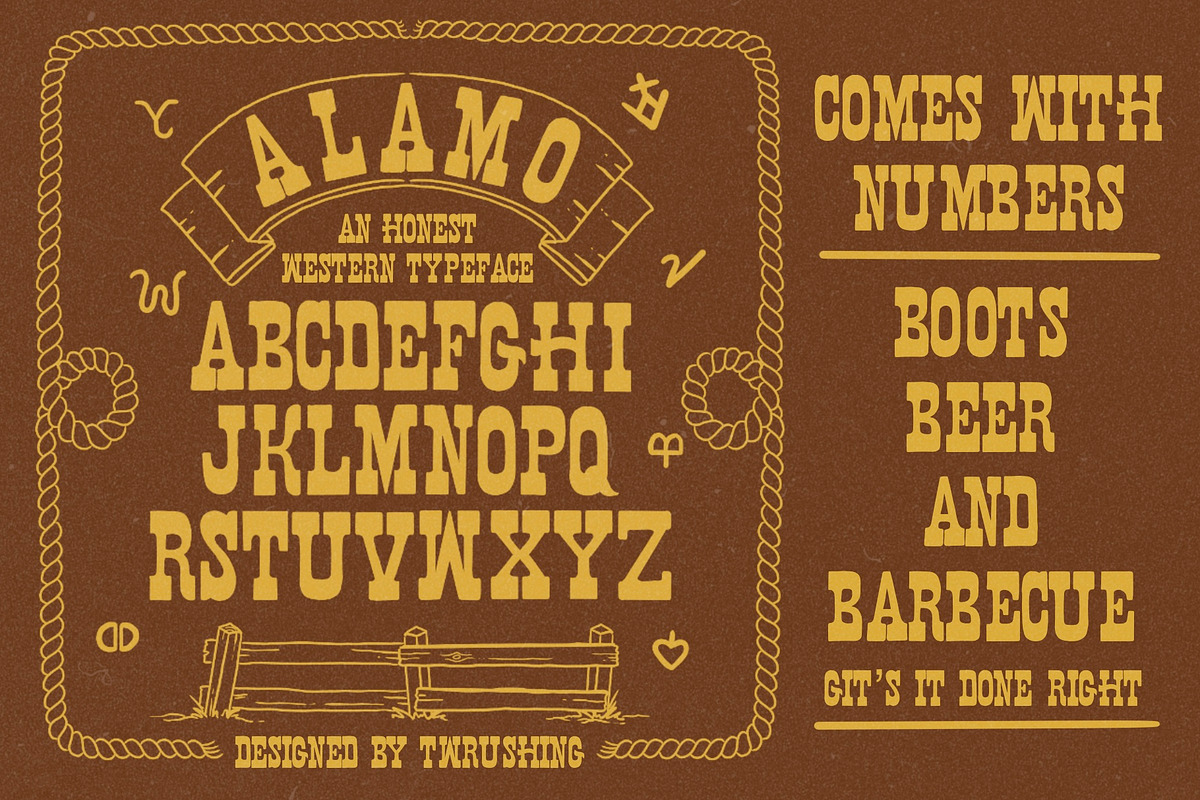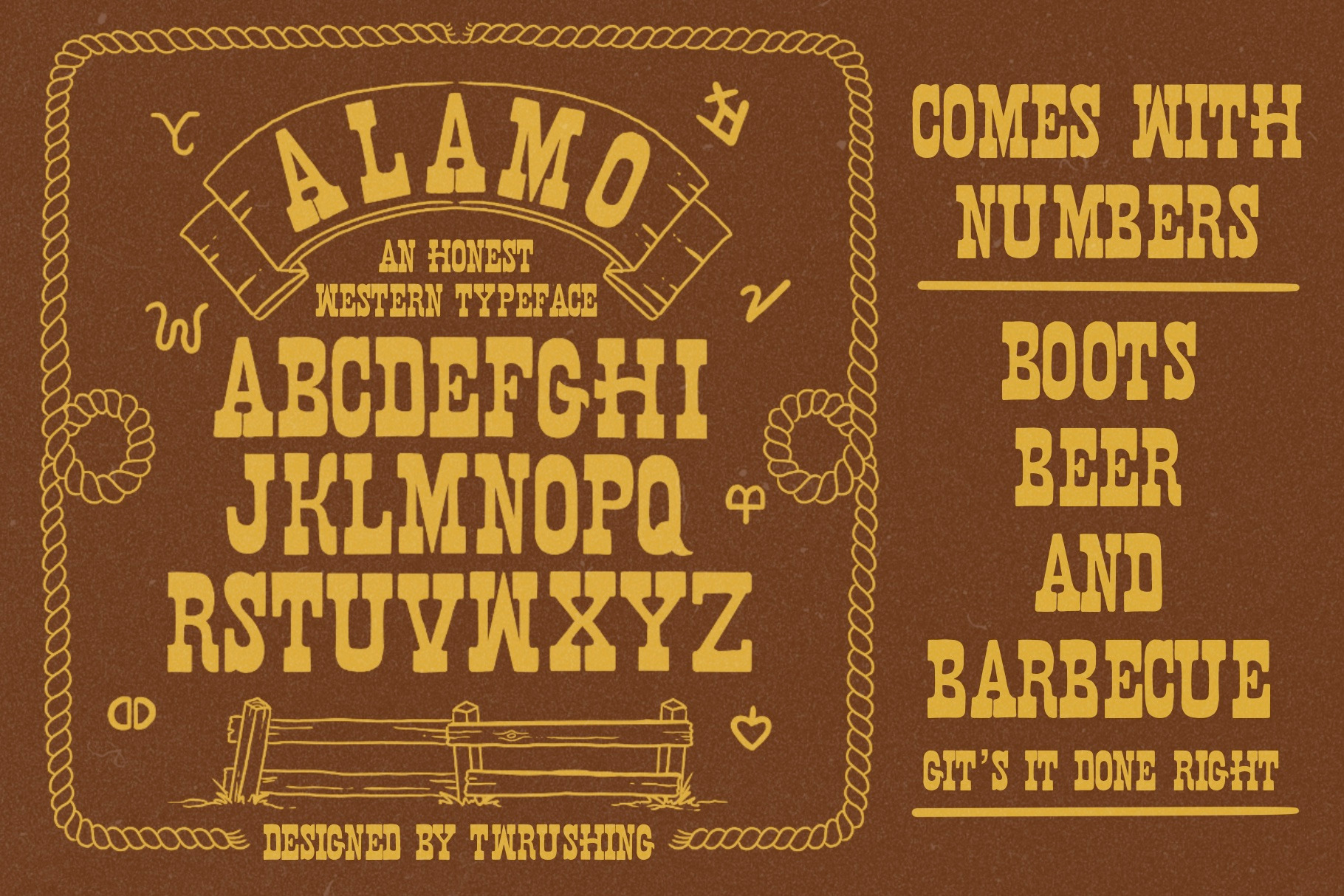
ALAMO WESTERN FONT BY TWRUSHING
Alamo is a classic take on a slab type from the golden age of print. A western flavor and an honest, hand drawn feel. Comes with 0-9 and a whole lotta mojo.
Designed by illustrator Taylor Rushing of Not Bad Illustration.